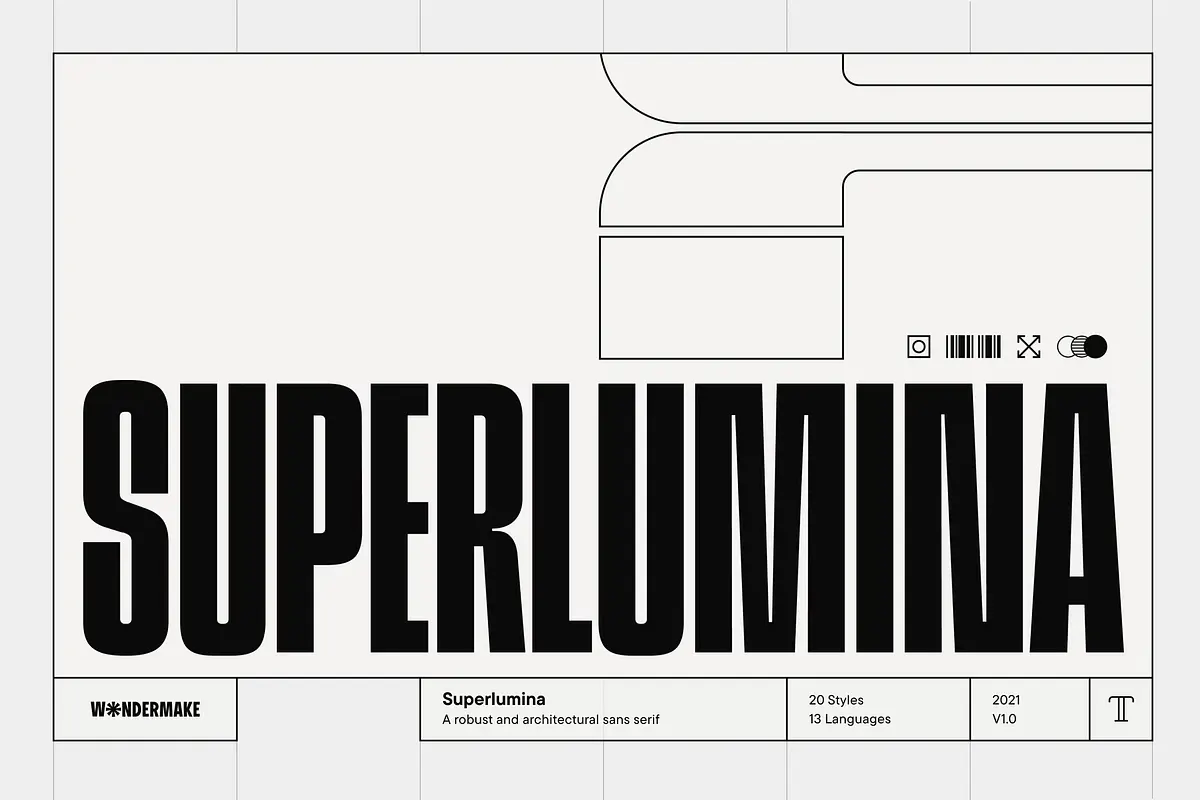
Superlumina Font Free Download is a sleek, modern typeface designed for high-impact designs. With its geometric structure and bold, clean lines, this font is perfect for branding, logos, headlines, and other creative projects that need a contemporary, professional look.
The Superlumina Font Free Download is versatile, working well in both digital and print applications, making it ideal for corporate identities, advertising, and creative content.